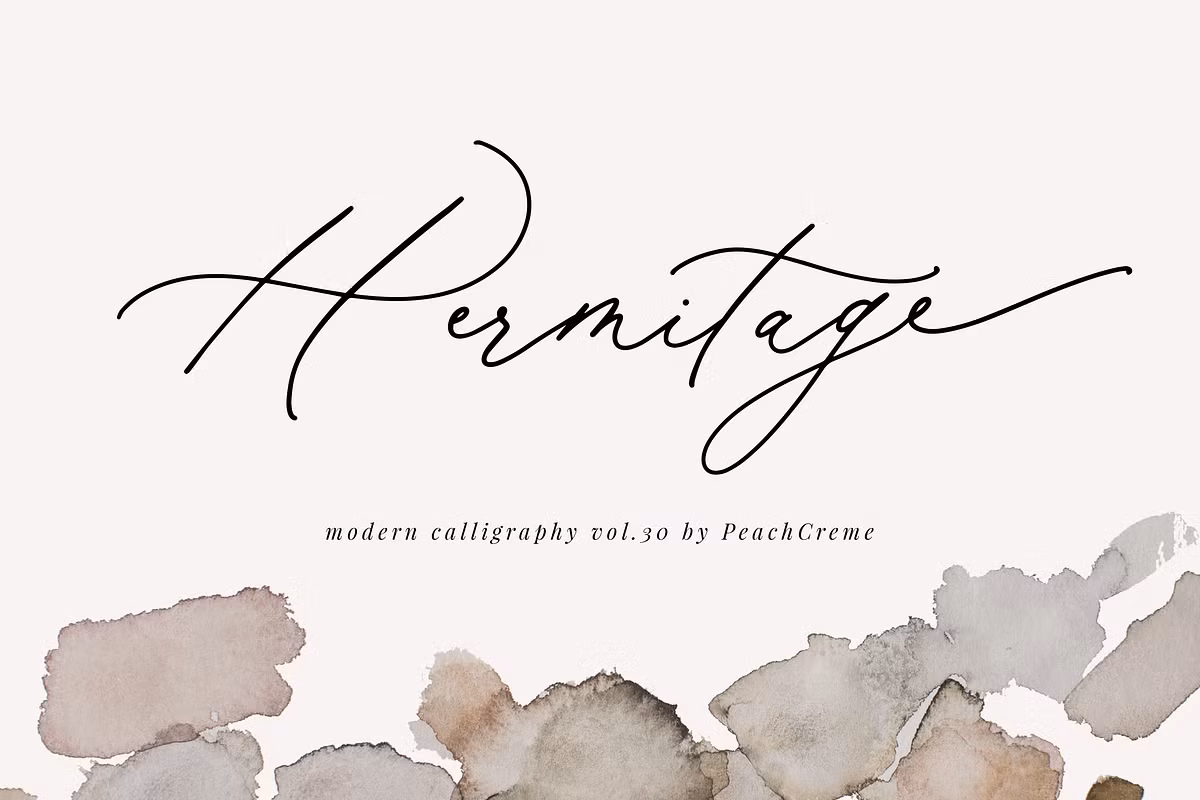
Hermitage Modern Calligraphy font Free Download
Hermitage Modern Calligraphy Font Free Download is an elegant and refined script typeface that brings a sophisticated, handwritten touch to your designs. With its flowing curves and artistic flair, Hermitage is perfect for creating wedding invitations, branding, logos, and other creative projects that need a personal, stylish touch. Its modern calligraphy design exudes a timeless charm and grace, making it ideal for both digital and print projects.